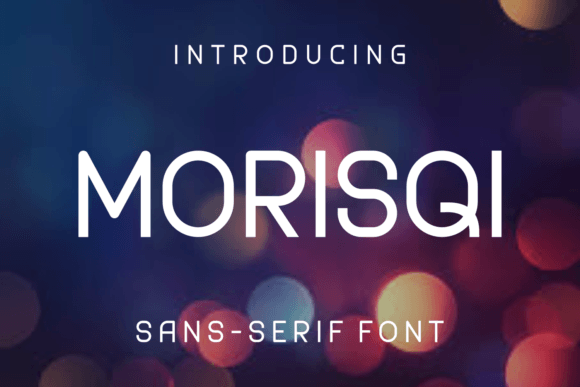
Get ready to embark on a typographical adventure with Morisqi Font, the game-changer in the world of sans serif fonts. This exquisite creation by lelevien is a masterpiece of simplicity, elegance, and sophistication. Morisqi's clean lines, open counters, and carefully crafted curves will leave you spellbound.
Unleash your creativity with Morisqi and transform your designs into captivating works of art. Whether you're a seasoned designer or just starting, Morisqi will elevate your projects to new heights. Its versatility knows no bounds, making it the perfect choice for a wide range of applications, from eye-catching logos and branding to stunning brochures and presentations.
Step into a world of limitless possibilities with Morisqi Font. Its timeless style will make your designs stand the test of time, while its modern aesthetic ensures a fresh and contemporary look. Experience the joy of creating designs that resonate with your audience, leaving a lasting impression that sets you apart.
Embrace the beauty of simplicity and let Morisqi Font guide you towards typographic excellence. Its intuitive nature makes it easy to use, allowing you to focus on your creativity without getting bogged down in technicalities. Dive into the world of Morisqi and discover a font that will revolutionize your design journey.